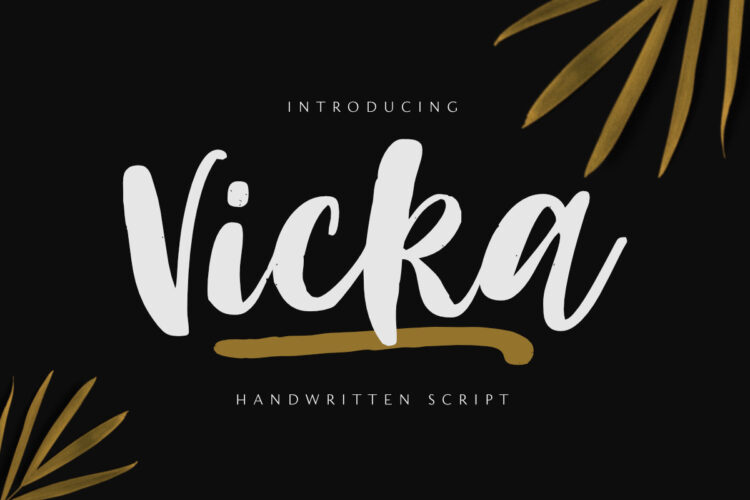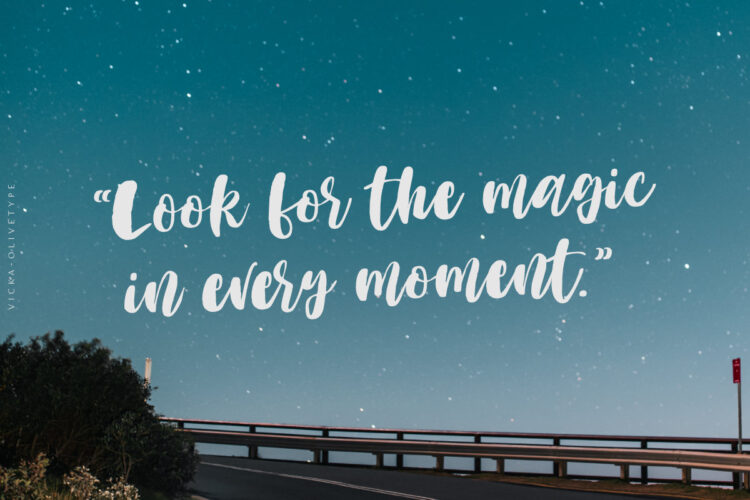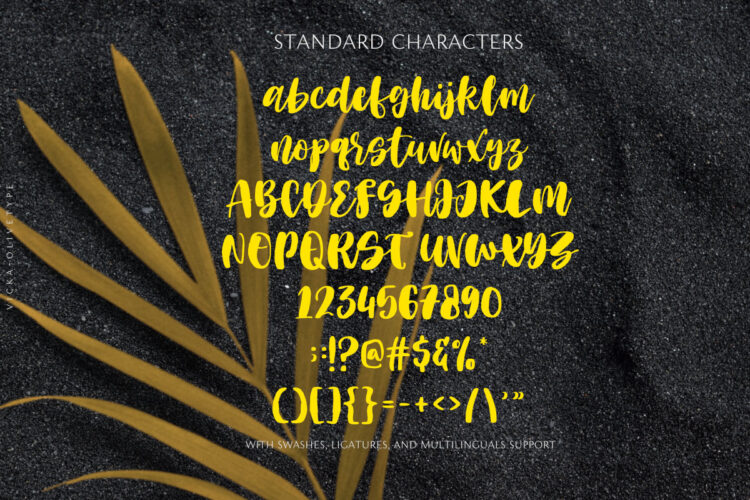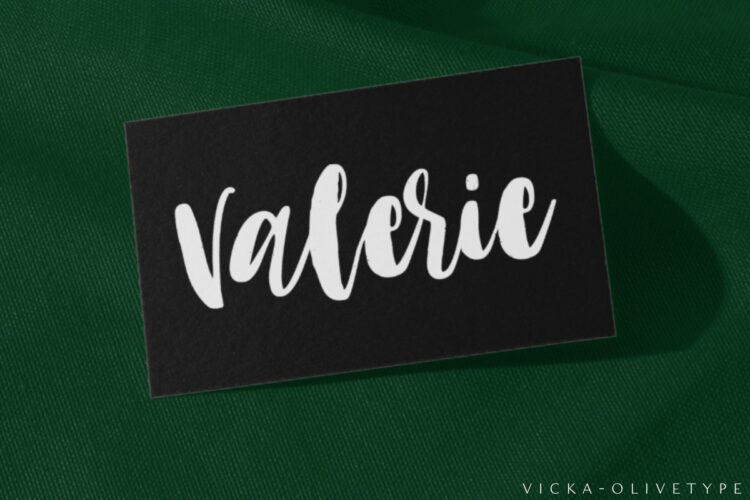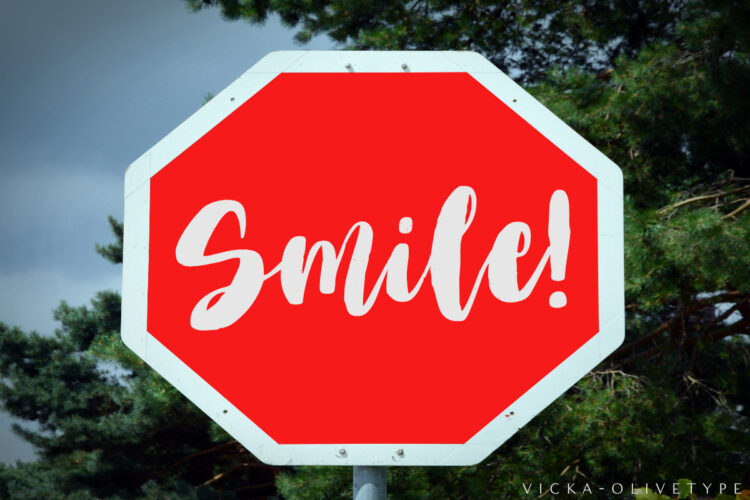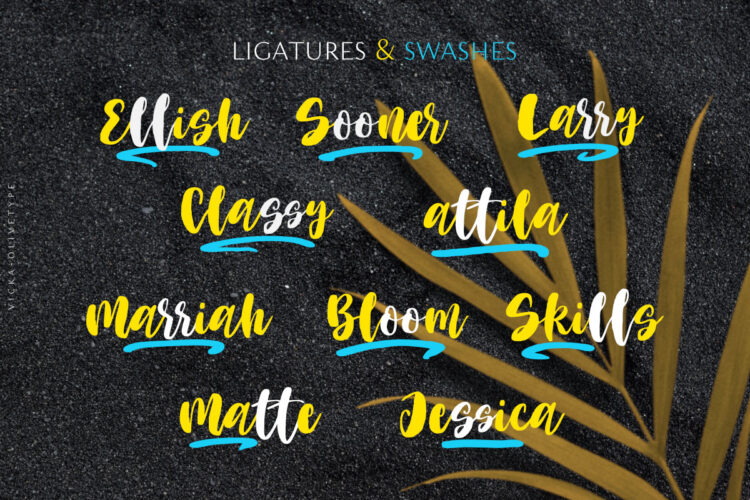
Vicka is a lovely and trendy handwritten font. It is a good choice for creating eye-catching logos, brandings, and quotes.
This Font is supporting more than 66 languages, which include: Afrikaans Albanian Catalan Danish Dutch English Estonian Finnish French German Italian Norwegian Portuguese Spanish Swedish Zulu, and more.
- Basic Latin A-Z & a-z.
- Swashes and ligatures